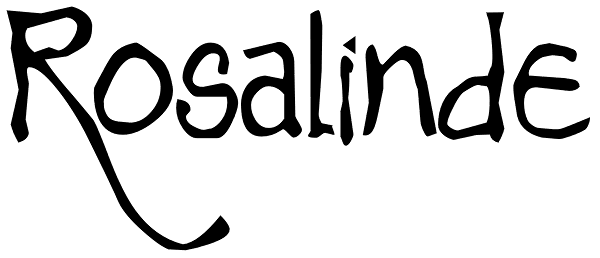
Rosalinde
Rosalinde is an original font based on rough hand-lettering reminiscent of 1960s era protest poster lettering. It's the kind of lettering you'd expect to see used for a snippet of anti-war poetry set against a red-white-and-blue striped background...